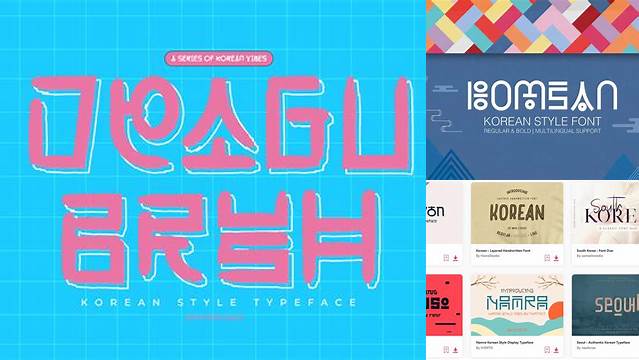
Korean Cube Font: Free Download For Your Designs
Hey guys! Are you looking to add a unique, modern touch to your designs? Look no further! The Korean cube font is here to save the day. This font style is super trendy and perfect for a variety of projects. Let's dive into where you can find these fonts for free and how to use them!
1. Understanding Korean Cube Fonts
So, what exactly is a Korean cube font? Essentially, it’s a typeface that incorporates geometric, cube-like shapes into the Korean alphabet (Hangul). This gives the font a futuristic and structured appearance, making it stand out from more traditional fonts. The beauty of these fonts lies in their ability to blend the elegance of Hangul with modern design principles. Think about using it in posters, digital art, or even branding materials to give that extra edge.
Designers often gravitate towards Korean cube fonts because they offer a fresh take on typography. The structured nature of the font makes it highly readable, even with its distinct geometric shapes. Plus, the juxtaposition of traditional characters with modern design elements creates a visually appealing contrast. Whether you're working on a tech-related project or just want to add some visual interest, a Korean cube font can be an excellent choice. Free downloads make it even more accessible for designers and hobbyists alike, enabling them to experiment without breaking the bank. So, go ahead, give your designs a unique twist with this fantastic font style!
4. Using Korean Cube Fonts in Graphic Design
Alright, you've got your Korean cube font installed and ready to go – now it's time to unleash its potential in your graphic design projects! This font style is incredibly versatile and can add a modern, edgy feel to a variety of designs. Think about using it in posters, website headers, or even social media graphics. The geometric shapes make it visually striking, perfect for grabbing attention and making a statement.
When using Korean cube fonts, consider the overall aesthetic you're aiming for. This font style pairs well with clean, minimalist designs, as its unique appearance can be a focal point. Experiment with different colors and backgrounds to see what works best. Also, pay attention to the font size and spacing to ensure readability, especially if you're using the font for body text. Don’t be afraid to mix and match with other fonts to create contrast and visual interest. For example, pairing a Korean cube font with a simple sans-serif font can create a balanced and appealing look. Let your creativity flow and see how this font can transform your designs!
5. Tips for Effective Typography with Korean Fonts
Using Korean fonts, especially those with unique designs like cube fonts, requires a bit of finesse to ensure your typography is effective and visually appealing. One of the key things to remember is readability. While Korean cube fonts can be eye-catching, ensure that the geometric shapes don't compromise the legibility of the text. Use appropriate font sizes and spacing to make the text easy to read, especially for longer passages.
Another important tip is to consider the context and audience of your design. A Korean cube font might be perfect for a tech-related project or a modern art piece, but it might not be suitable for more traditional or formal designs. Experiment with different font pairings to find a combination that complements the Korean cube font without overshadowing it. Pay attention to the overall color palette as well – a font with strong geometric shapes might work best with a minimalist or monochromatic color scheme. Finally, always test your designs on different devices and screen sizes to ensure they look good across all platforms. By following these tips, you can create stunning and effective typography with Korean fonts!
6. Korean Cube Font and Branding
When it comes to branding, using a Korean cube font can be a game-changer, especially if you're aiming for a modern, tech-savvy, or international vibe. This unique font style can help your brand stand out and make a memorable impression. Imagine using it in your logo, website design, or marketing materials – it can instantly add a touch of sophistication and innovation.
However, it's crucial to use Korean cube fonts strategically in your branding efforts. Consider your target audience and the message you want to convey. If your brand is all about tradition and classic elegance, a Korean cube font might not be the best fit. But if you're targeting a younger demographic or aiming for a futuristic look, it can be incredibly effective. Consistency is key – once you've chosen a Korean cube font for your brand, make sure to use it consistently across all your branding materials. This will help create a cohesive and recognizable brand identity. So, if you're looking to give your brand a fresh and modern twist, a Korean cube font might just be the perfect solution!
7. Korean Cube Fonts in Web Design
Incorporating a Korean cube font into your web design can significantly enhance the visual appeal and user experience of your site. These fonts bring a modern, edgy aesthetic that can set your website apart from the competition. They are particularly effective for tech startups, creative agencies, and any brand aiming for a contemporary vibe. By using a Korean cube font in headings, banners, or even as part of your logo, you can create a unique and memorable online presence.
However, it’s crucial to use these fonts judiciously to maintain readability and site performance. Ensure that the font size and spacing are optimized for different screen sizes and devices. It's also important to test the font's rendering across various browsers to guarantee a consistent visual experience for all users. Consider using CSS to specify fallback fonts in case the Korean cube font doesn't load properly. Additionally, be mindful of the font's file size, as large font files can slow down your website. By carefully integrating a Korean cube font, you can create a visually stunning and user-friendly website that leaves a lasting impression.
8. Korean Cube Fonts for Mobile Apps
In the competitive landscape of mobile apps, a unique and visually appealing design can make all the difference. Using a Korean cube font in your app’s interface can provide that distinctive edge. These fonts can add a modern, sophisticated touch to your app, making it stand out in app stores and enhancing user engagement. Whether it’s for headings, button labels, or call-to-action text, a Korean cube font can help create a consistent and memorable brand experience.
When incorporating Korean cube fonts into your mobile app design, consider the readability and performance implications. Ensure that the font size and spacing are optimized for smaller screens to maintain legibility. Test the font on different devices and operating systems to ensure consistent rendering. Also, be mindful of the font file size, as larger files can impact app loading times and storage space. Use font compression techniques and consider using web fonts for dynamic text to optimize performance. By thoughtfully integrating a Korean cube font, you can create a visually appealing and user-friendly mobile app that captivates your audience.
9. Mixing Korean Cube Fonts with Other Typefaces
One of the most exciting aspects of typography is the art of mixing different typefaces to create visually appealing and harmonious designs. When working with a Korean cube font, pairing it with other fonts can result in stunning and unique compositions. The key is to find typefaces that complement the geometric and modern characteristics of the Korean cube font without overpowering it.
A classic approach is to pair a Korean cube font with a simple, clean sans-serif font for body text. This combination provides a balanced contrast, ensuring readability while highlighting the distinctive features of the Korean cube font. Another option is to use a more traditional serif font to create an intriguing juxtaposition between old and new. Experiment with different font weights, sizes, and styles to find the perfect balance. Tools like Adobe Fonts and Google Fonts can be invaluable for previewing font pairings. By carefully selecting and mixing typefaces, you can create sophisticated and engaging designs that showcase the beauty of Korean cube fonts.
10. Korean Cube Fonts and Social Media
In the fast-paced world of social media, standing out from the crowd is essential. Using a Korean cube font in your social media graphics and posts can instantly grab attention and convey a modern, edgy vibe. These fonts are perfect for creating eye-catching headers, captions, and promotional materials that resonate with your audience. Whether it's Instagram, Facebook, Twitter, or LinkedIn, incorporating a Korean cube font can help your brand make a lasting impression.
When using Korean cube fonts on social media, consider the platform's specific design requirements and best practices. Ensure that the font size and spacing are optimized for mobile viewing, as most social media users access content on their smartphones. Use high-resolution images and graphics to showcase the font's details. Experiment with different color combinations and backgrounds to create visually appealing designs. Additionally, be mindful of the platform's character limits and use the Korean cube font strategically to highlight key messages. By leveraging the unique aesthetic of Korean cube fonts, you can create engaging and shareable content that elevates your social media presence.
11. The History of Korean Fonts
To truly appreciate Korean cube fonts, it's helpful to understand the history of Korean typography. The Korean alphabet, Hangul, was created in the 15th century by King Sejong the Great. This innovative writing system was designed to be easy to learn and use, making literacy more accessible to the Korean people. Early Hangul fonts were often based on traditional calligraphy styles, reflecting the cultural values of the time.
Over the centuries, Korean typography has evolved, influenced by various factors, including technological advancements and global design trends. The introduction of printing presses and digital technology led to the development of a wide range of Korean fonts, each with its unique characteristics. Korean cube fonts represent a modern interpretation of Hangul, blending traditional elements with contemporary design principles. By understanding the historical context of Korean fonts, designers can create more meaningful and impactful designs that honor the past while embracing the future.
12. The Popularity of Korean Design
Korean design has gained significant popularity worldwide, known for its minimalist aesthetic, innovative use of technology, and unique cultural influences. From fashion and beauty to technology and entertainment, Korean design is making waves across various industries. This global interest has fueled the demand for Korean fonts, including Korean cube fonts, as designers seek to incorporate Korean design elements into their projects.
The popularity of Korean design can be attributed to several factors, including the rise of K-pop, K-dramas, and Korean cinema. These cultural exports have showcased the beauty and sophistication of Korean aesthetics, inspiring people around the world. Additionally, Korean companies like Samsung and LG have played a significant role in promoting Korean design through their innovative products and marketing campaigns. As Korean design continues to gain traction, Korean fonts will likely remain in high demand, offering designers a valuable tool for creating visually stunning and culturally relevant designs.
13. Future Trends in Korean Typography
The world of typography is constantly evolving, and Korean typography is no exception. As technology advances and design trends shift, we can expect to see exciting new developments in Korean fonts. One potential trend is the integration of AI and machine learning to create more personalized and dynamic fonts. Imagine fonts that adapt to the user's preferences or the context of the content, providing a truly customized reading experience.
Another trend to watch is the blurring of lines between typography and other design disciplines, such as illustration and animation. We may see Korean fonts that incorporate animated elements or interactive features, creating a more immersive and engaging user experience. Additionally, the rise of virtual and augmented reality could lead to the development of Korean fonts optimized for these emerging platforms. As Korean typography continues to evolve, designers will have access to an ever-expanding palette of creative tools, enabling them to push the boundaries of visual communication.
14. Korean Calligraphy and its Influence
Korean calligraphy, known as Seoye, has a rich history and continues to influence modern Korean typography. Rooted in traditional brushstrokes and ink techniques, Korean calligraphy emphasizes the beauty of form and the expression of emotion. Many Korean fonts, including Korean cube fonts, draw inspiration from calligraphy, incorporating elements of fluidity, rhythm, and balance.
Understanding the principles of Korean calligraphy can help designers create more authentic and visually appealing Korean fonts. By studying the various styles of calligraphy and practicing brushstroke techniques, designers can develop a deeper appreciation for the art of Korean writing. This knowledge can then be applied to the design of Korean fonts, resulting in typefaces that are both modern and deeply rooted in Korean cultural heritage. As Korean design continues to gain global recognition, the influence of Korean calligraphy will likely remain a significant factor in the evolution of Korean typography.
15. Legal Aspects of Downloading Fonts
When downloading fonts, including Korean cube fonts, it's crucial to understand the legal aspects of font licensing. Most fonts are protected by copyright law, which grants the font designer or foundry exclusive rights to control how the font is used. Downloading fonts from unauthorized sources can result in legal consequences, including fines and lawsuits. Therefore, it's essential to obtain fonts from reputable sources and carefully review the font license agreement.
Font licenses typically specify the permitted uses of the font, such as whether it can be used for commercial purposes, embedded in software or websites, or modified. Some licenses may also restrict the number of users who can access the font. By understanding and complying with the font license agreement, you can ensure that you're using the font legally and ethically. If you're unsure about the terms of a font license, it's always best to consult with a legal professional or contact the font designer or foundry for clarification.
16. Korean Font Design Resources
For those interested in learning more about Korean font design, there are numerous resources available online and offline. Websites like Behance, Dribbble, and Fontspace showcase the work of talented Korean font designers, providing inspiration and insights into the creative process. Online tutorials and courses can teach you the basics of Korean typography and font design, covering topics such as Hangul structure, brushstroke techniques, and digital font creation.
Books and magazines dedicated to typography and graphic design often feature articles on Korean fonts, exploring their history, cultural significance, and modern applications. Additionally, attending design conferences and workshops can provide valuable networking opportunities and hands-on training in Korean font design. By exploring these resources, you can expand your knowledge of Korean typography and develop your skills as a font designer.
17. Open Source Korean Fonts
Open source fonts offer a cost-effective and flexible alternative to commercial fonts. These fonts are typically released under licenses that allow users to freely use, modify, and distribute the font. Several open source Korean fonts are available, providing designers with a wide range of options for their projects. These fonts are often created by community-driven initiatives, with designers and developers collaborating to create high-quality typefaces.
When using open source Korean fonts, it's essential to review the font license agreement to understand the permitted uses and any restrictions. Some open source licenses may require you to attribute the font designer or share any modifications you make to the font. By contributing to open source font projects, you can support the development of free and accessible typefaces for the design community. Open source Korean fonts can be a valuable resource for designers looking to create visually stunning and culturally relevant designs without breaking the bank.
18. Creating Your Own Korean Font
Designing your own Korean font can be a challenging but rewarding endeavor. It allows you to express your creativity and create a typeface that perfectly matches your unique design vision. To get started, you'll need a solid understanding of Korean typography, including the structure of Hangul characters and the principles of calligraphy.
Software like Glyphs, FontLab Studio, and RoboFont provide the tools you need to create and edit font outlines. You'll also need to learn about font metrics, kerning, and hinting to ensure that your font is readable and visually appealing. Consider taking online courses or workshops to learn the basics of font design and get feedback on your work. Creating a Korean font requires patience, attention to detail, and a passion for typography. But the end result can be a typeface that is truly unique and reflective of your artistic style.
19. Korean Font Naming Conventions
Naming your Korean font is an important step in the design process. A well-chosen name can help your font stand out and communicate its personality and style. Consider using names that reflect the font's characteristics, such as its geometric shapes, cultural influences, or intended use. You can also use Korean words or phrases to give your font a unique and authentic feel.
Researching existing Korean font names can help you avoid duplication and ensure that your font has a distinct identity. It's also a good idea to check if the name is trademarked to avoid potential legal issues. Once you've chosen a name, create a font specimen that showcases the font's characters and styles. This specimen can be used to promote your font and attract potential users. A memorable and well-chosen name can help your Korean font gain recognition and success in the design community.
20. Korean Fonts for Print vs. Digital
When choosing a Korean font, it's important to consider whether it will be used primarily for print or digital media. Fonts designed for print often have different characteristics than fonts designed for digital displays. Print fonts typically have finer details and are optimized for high-resolution printing, while digital fonts are designed for optimal readability on screens with varying resolutions.
For print projects, consider using Korean fonts with strong contrast and well-defined serifs or sans-serifs. For digital projects, choose Korean fonts with clear, legible shapes and optimized hinting for screen rendering. Testing your font on different devices and screen sizes is crucial to ensure that it looks good across all platforms. Keep in mind that some Korean fonts are designed specifically for either print or digital use, while others are versatile enough to work well in both mediums. By considering the intended use of your font, you can make an informed decision that results in a visually appealing and readable design.
21. Using Korean Fonts in Logos
Incorporating a Korean font into your logo can be a powerful way to communicate your brand's identity and values. A well-chosen Korean font can convey a sense of modernity, innovation, or cultural heritage, depending on the style of the font. Consider using a Korean cube font for a tech startup or a traditional Korean font for a cultural organization.
When using a Korean font in your logo, keep in mind that simplicity and legibility are key. Choose a font that is easy to read at various sizes and in different contexts. Avoid using overly complex or decorative fonts that can be difficult to decipher. It's also important to consider the overall design of your logo and how the Korean font interacts with other elements, such as symbols and colors. A well-designed logo with a Korean font can create a strong and memorable brand identity that resonates with your target audience.
22. Korean Fonts and Cultural Sensitivity
When using Korean fonts, it's important to be mindful of cultural sensitivity. Korean typography is deeply rooted in Korean culture and history, and using Korean fonts inappropriately can be disrespectful or offensive. Avoid using Korean fonts in designs that promote stereotypes or misrepresent Korean culture.
Researching the cultural context of Korean fonts can help you make informed design decisions that are respectful and authentic. Consider consulting with Korean designers or cultural experts to ensure that your use of Korean fonts is appropriate and sensitive. By approaching Korean typography with cultural awareness, you can create designs that are both visually appealing and culturally meaningful.
23. Font Weight and Style Variations
Font weight and style variations play a crucial role in typography, allowing designers to create visual hierarchy and emphasize different aspects of the text. Korean fonts are available in a variety of weights and styles, ranging from light and delicate to bold and strong. Experimenting with different font weights and styles can help you create more dynamic and engaging designs.
Using bold or italic styles can draw attention to specific words or phrases, while using lighter weights can create a sense of elegance and refinement. Consider using font weight and style variations to differentiate between headings, body text, and captions. It's important to use font weight and style variations consistently throughout your design to maintain a cohesive and professional look. By mastering the art of font weight and style variations, you can elevate your typography and create more visually impactful designs.
24. Kerning and Letter Spacing Adjustments
Kerning and letter spacing adjustments are essential for achieving optimal readability and visual appeal in typography. Kerning refers to the adjustment of the space between individual letter pairs, while letter spacing refers to the overall spacing between all letters in a word or line of text. Properly adjusting kerning and letter spacing can significantly improve the legibility and aesthetic quality of your designs.
When working with Korean fonts, pay close attention to the kerning and letter spacing, as these fonts often have unique character shapes and spacing requirements. Use your design software's kerning and letter spacing tools to fine-tune the spacing between letters until the text appears balanced and harmonious. Test your designs on different devices and screen sizes to ensure that the kerning and letter spacing look good across all platforms. By mastering the art of kerning and letter spacing adjustments, you can create typography that is both visually stunning and easy to read.
25. Line Height and Leading Considerations
Line height, also known as leading, refers to the vertical space between lines of text. Properly adjusting line height is crucial for ensuring readability and creating a visually appealing text block. Too little line height can make the text feel cramped and difficult to read, while too much line height can make the text feel disconnected and disjointed.
When working with Korean fonts, consider the unique characteristics of the typeface and the intended use of the text. Use your design software's line height settings to adjust the vertical spacing between lines until the text feels comfortable and easy to read. A general guideline is to set the line height to be approximately 120% to 145% of the font size, but this can vary depending on the specific font and design context. Testing your designs on different devices and screen sizes is essential to ensure that the line height looks good across all platforms. By paying attention to line height and leading, you can create text blocks that are both visually appealing and highly readable.
26. Color Combinations with Korean Fonts
The choice of color combinations can significantly impact the overall aesthetic and readability of your designs. When working with Korean fonts, it's important to choose colors that complement the typeface and create a visually harmonious composition. Consider using color palettes that reflect Korean culture or evoke the desired mood and emotion.
Experiment with different color combinations to see what works best for your specific design project. Using high-contrast colors can improve readability, while using low-contrast colors can create a more subtle and sophisticated look. Keep in mind that color perception can vary depending on the device and screen settings, so testing your designs on different platforms is essential. By carefully considering color combinations, you can enhance the visual impact of your Korean fonts and create designs that are both beautiful and effective.
27. The Impact of Font Size on Readability
Font size plays a critical role in readability, particularly when designing for different platforms and devices. Selecting an appropriate font size ensures that the text is easily legible without straining the reader's eyes. When working with Korean fonts, it's essential to consider the characteristics of the typeface and the intended use of the text. For body text, choose a font size that is comfortable to read for extended periods, typically between 10 and 12 points for print and 14 to 16 pixels for web.
For headings and titles, use larger font sizes to create visual hierarchy and draw attention to important information. When designing for mobile devices, ensure that the font size is optimized for smaller screens and touch interactions. Testing your designs on different devices and screen sizes is crucial to ensure that the font size is appropriate and that the text is easily readable across all platforms. By carefully considering the impact of font size on readability, you can create designs that are both visually appealing and user-friendly.
28. Localization and Multilingual Design
In today's globalized world, localization and multilingual design are essential considerations for reaching diverse audiences. When working with Korean fonts, it's important to ensure that your designs are properly localized for the Korean language and culture. This includes translating all text into Korean, adapting the layout and visual elements to suit Korean reading habits, and considering cultural sensitivities.
When designing for multilingual audiences, it's also important to choose fonts that support multiple languages. Many Korean fonts include glyphs for Latin characters, allowing you to create designs that seamlessly integrate Korean and English text. Consider using font management tools to streamline the process of managing multiple fonts and languages in your design projects. By embracing localization and multilingual design principles, you can create designs that are accessible and engaging for audiences around the world.
29. Animation and Interactive Typography
Animation and interactive typography can add a dynamic and engaging element to your designs. When working with Korean fonts, consider incorporating subtle animations or interactive effects to draw attention to key messages and create a more immersive user experience. This could involve animating the characters as they appear on the screen, adding hover effects to highlight specific words, or creating interactive typography that responds to user input.
When implementing animation and interactive typography, it's important to strike a balance between visual appeal and usability. Avoid using excessive animations that can distract from the content or make the design feel overwhelming. Use animation and interactive effects purposefully to enhance the user experience and communicate your message more effectively. With the rise of web technologies like CSS animations and JavaScript, the possibilities for animation and interactive typography are endless.
30. The Future of Free Fonts
The future of free fonts looks promising, with more designers and foundries embracing open-source licensing models and offering high-quality fonts for free. This trend is driven by a desire to democratize design and make typography more accessible to everyone. As technology advances and design tools become more sophisticated, we can expect to see even more innovative and creative free fonts emerge.
However, it's important to remember that not all free fonts are created equal. When downloading free fonts, be sure to source them from reputable websites and carefully review the font license to understand the terms of use. Support the designers and foundries who create free fonts by giving them credit and contributing to their projects. By working together, we can ensure that the future of free fonts is bright and that everyone has access to the tools they need to create beautiful and effective typography.